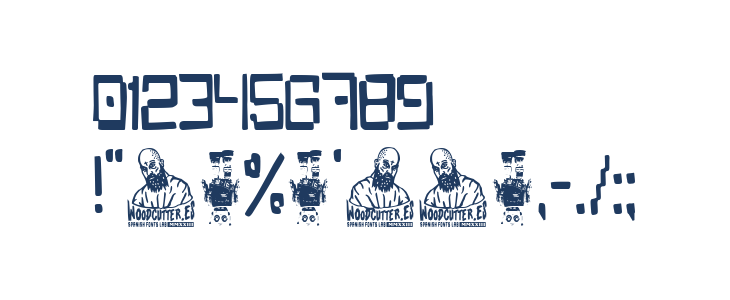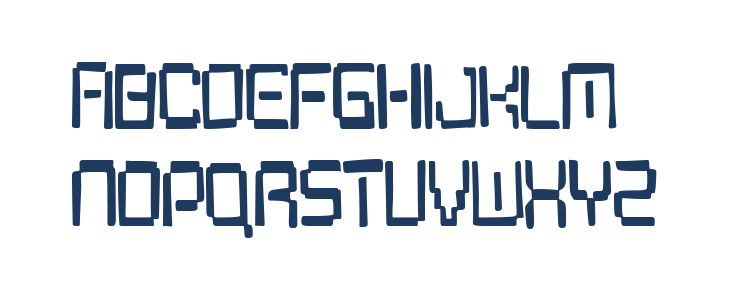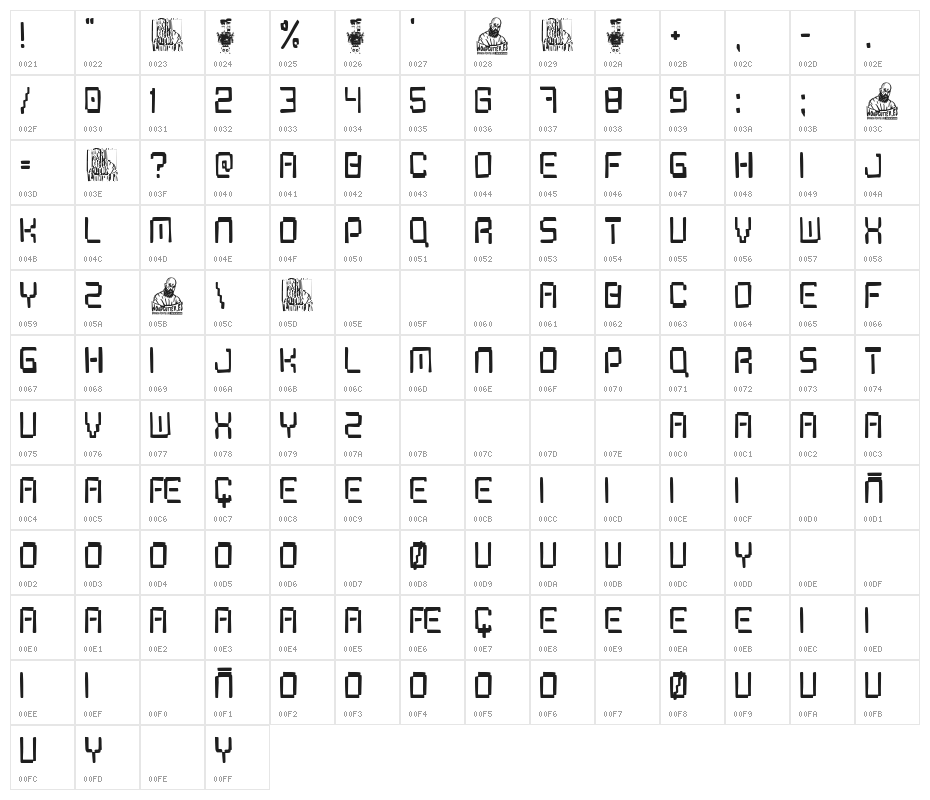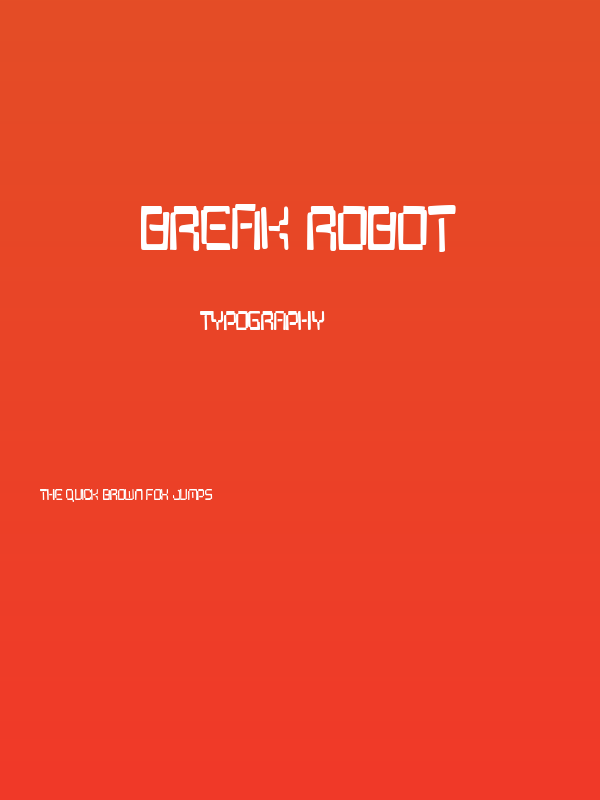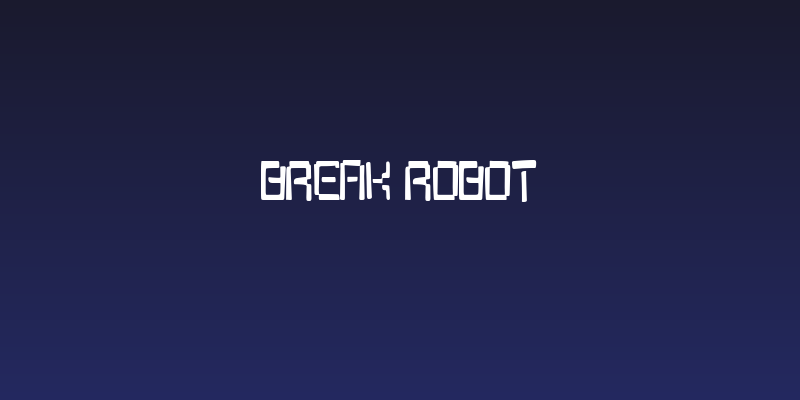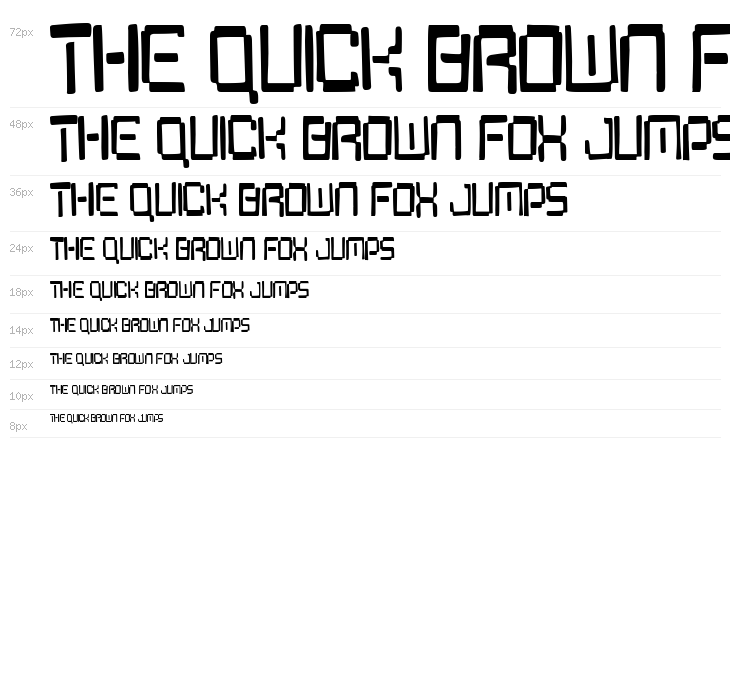
Break Robot Font
Break Robot Description
A geometric, angular display font with a robotic and mechanical appearance, featuring uniform stroke widths, squared corners, and a slightly condensed structure. The characters are uppercase with a modular, stencil-like construction, and the overall style is futuristic and industrial.
| Width | Condensed |
| Overall Style | Futuristic, Industrial, Decorative |
| Use Case | Headlines, Logos, Posters, Titles |
| Proposed Projects | Tech branding, sci-fi posters, video game titles, robotics event materials, industrial-themed graphics. |